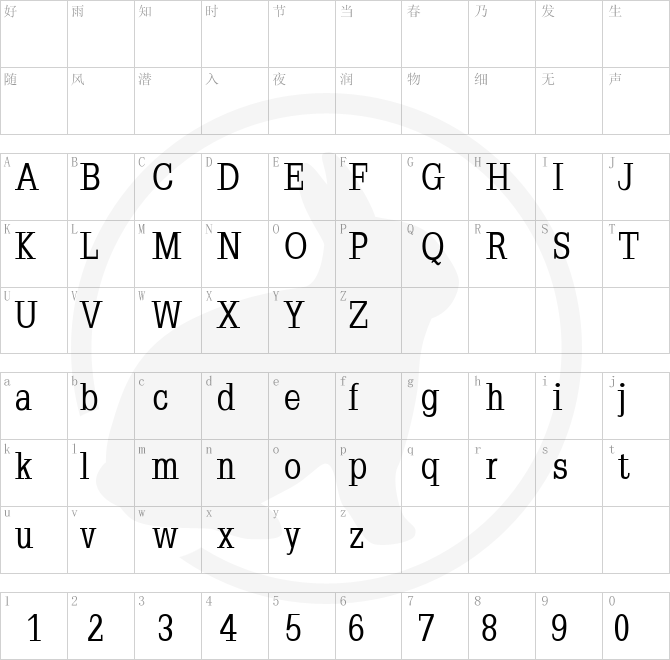
- Font Name:Napoleodoni
Napoleodoni-Bold.ttf is a very beautiful artistic font, Napoleodoni-Bold.ttf is widely used in the design and printing of various books and pictures,Napoleodoni-Bold.ttf has a strong visual impact,Napoleodoni-Bold.ttf is a commonly used font in newspapers, magazines and books, and is used in posters, e-commerce Poster design, store design, logo design, font design and other fields.Napoleodoni-Bold.